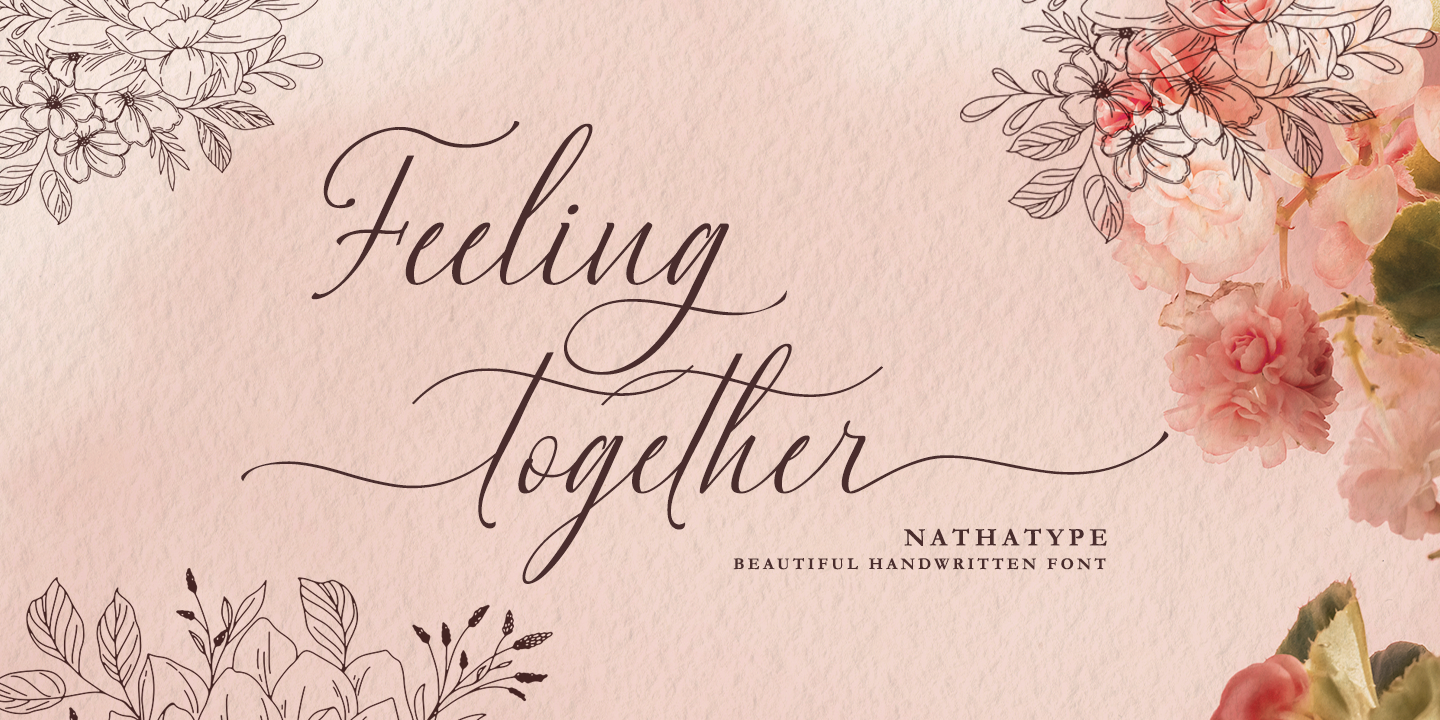
Feeling Together Font Free Download – A warm, connected script font that radiates unity and togetherness, perfect for heartfelt designs. Commercial projects require licensing, but free personal testing is available.
Where to Use Feeling Together Font?
This emotionally expressive font shines in:
• Wedding/anniversary invitations
• Family-oriented branding
• Friendship quote graphics
• Couple merchandise
• Community event posters
• Inspirational social media content
Why Feeling Together Font Connects
This font stands out with:
→ Unique interlocking letter connections
→ Soft rounded strokes with gentle bounce
→ 80+ contextual alternates for natural flow
→ Perfect balance between warmth and elegance
→ Special "embrace" ligatures for meaningful words
Feeling Together Font Features
Includes:
Regular and Bold weights
Extensive ligature set
Alternates for key characters
Multilingual basic support
Bonus heart ornament set
✓ 600+ carefully crafted glyphs
✓ OpenType contextual alternates
✓ Perfect for engraving and foil stamping
✓ Works beautifully in print and digital